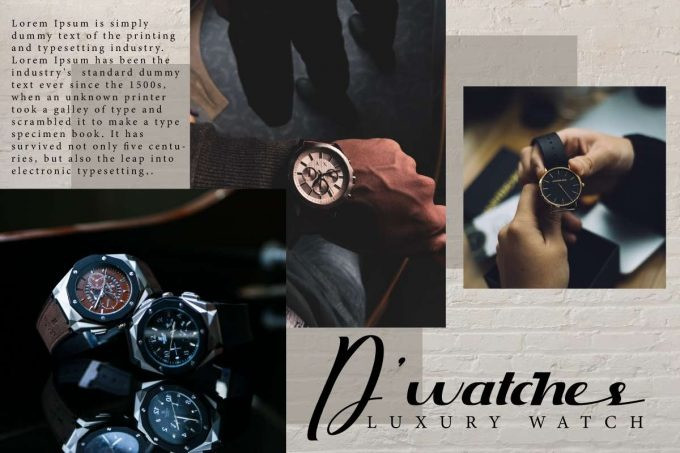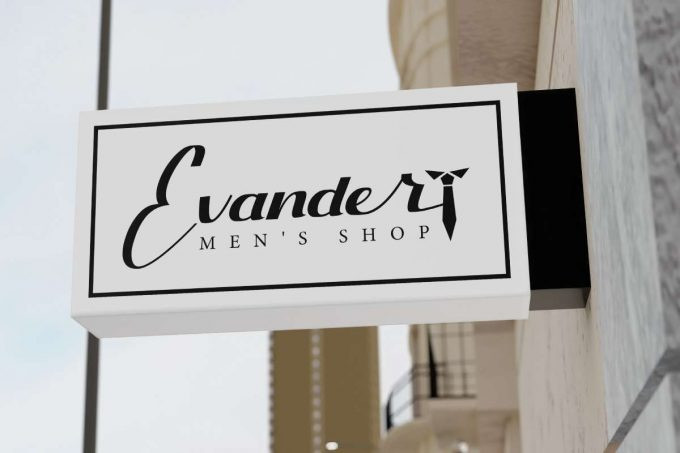
Extemporal Font
Extemporal Script Font is an elegant bold handwriting font with stylish look. This font has bold lines that are neatly arranged so it’s easy to read and adds beauty to your designs. The font will be perfect for many industries, such as fashion, accessories and jewelry, café, restaurant, photography, printing, publishing, and more!
Extemporal Font includes full set of Uppercase and Lowercase Basic Characters, Numerals and Punctuation, and Ligature to make your designs perfect and standout! Use this font to beautify your designs, including: brand logo, business logo, label, jewelry box, product packaging, quote, screen printing, signage, stationery, title, etc.